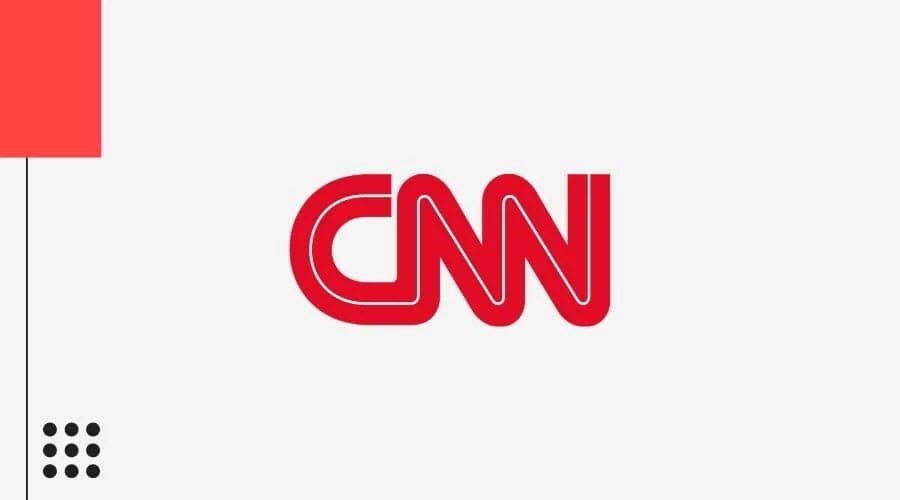
CNN, namely, Cable News Network, is one of the major English-language television networks founded by Ted Turner in 1980.
The logo of CNN is a combination of three letters of CNN in vivid red, with a white line running through the middle of the letters. The logo was custom made and it has been used since its foundation. A font that is available for you to produce text of a similar look is CNN designed by Ray Larabie.